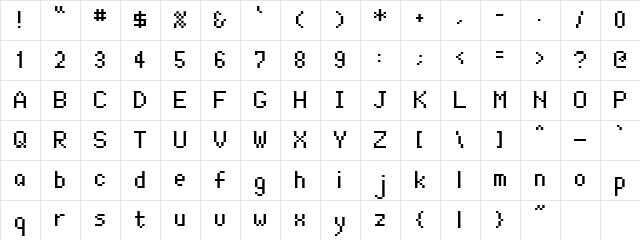
WeekBitA10 Regular Font Preview
WeekBitA10 Regular
WeekBitA10 Regular Font Details
Design Context for WeekBitA10 Typeface
WeekBitA10 offers clean, dependable letterforms without strong stylistic allegiance, making it a practical choice for designers who need flexibility.